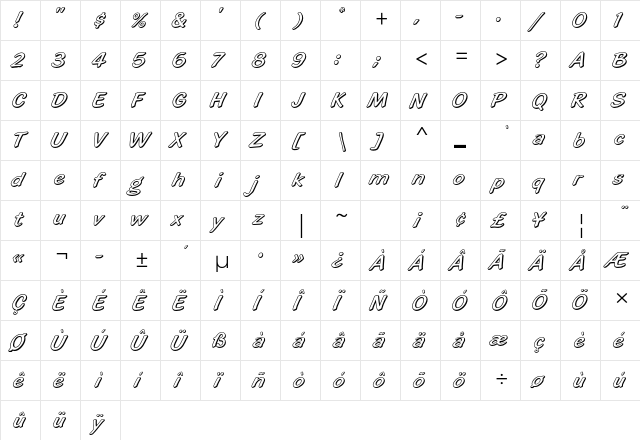
Highlight Std Regular
| Designer | Tony Watson |
Design Context for Highlight Std Typeface
Highlight Std is a composed and adaptable typeface that performs quietly and consistently across a wide range of design contexts. The delicate stroke weight brings airiness and refinement to layouts.